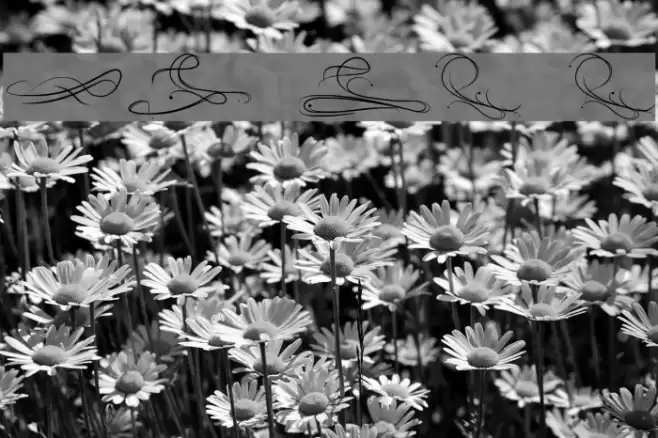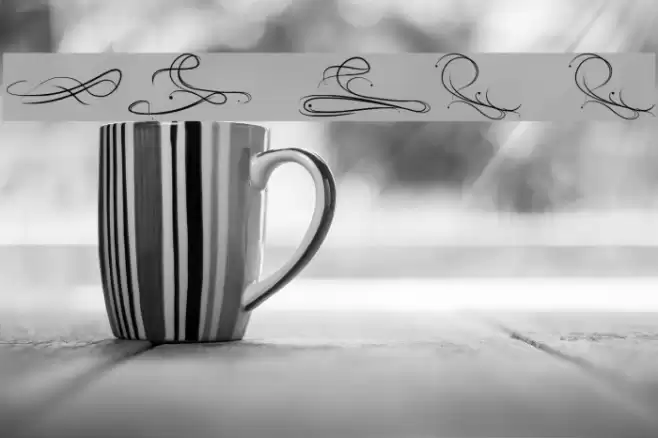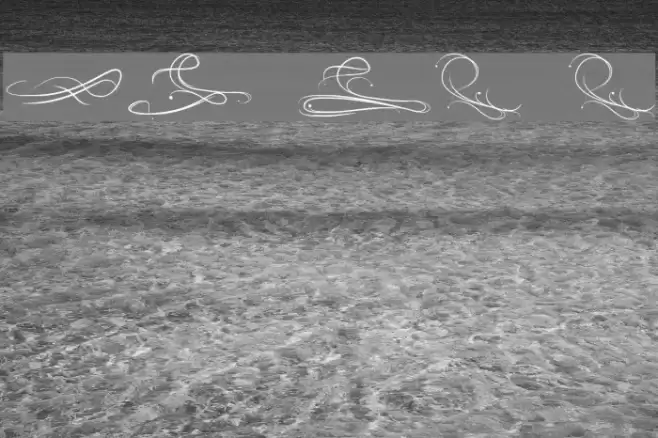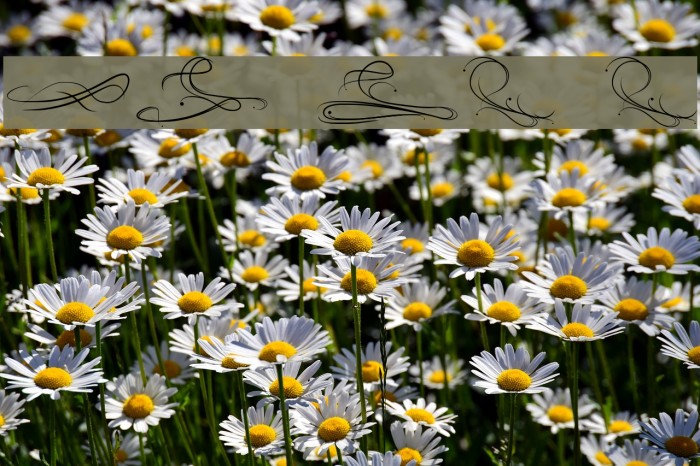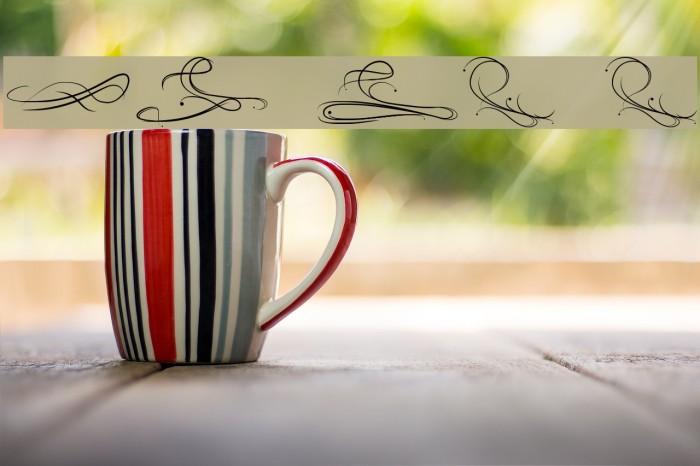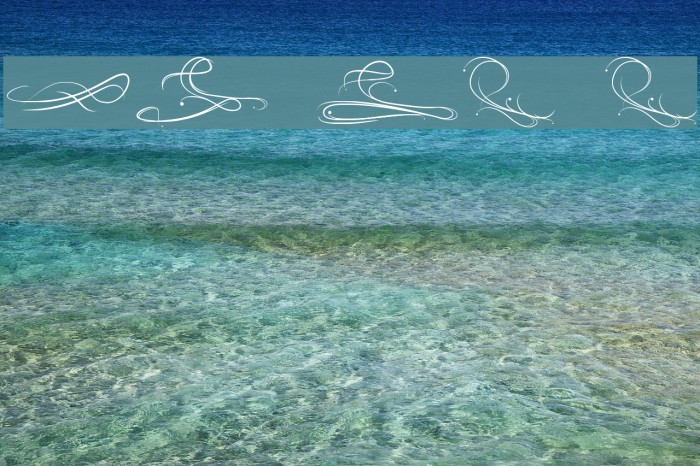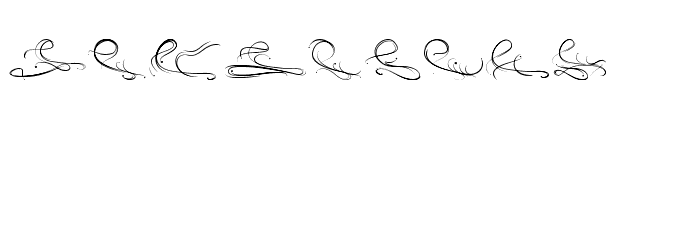
Eau de rose Font
Eau de rose Description
This font is an exquisite example of decorative calligraphy, characterized by its intricate swirls and flourishes. Each letter is adorned with elaborate loops and curves, creating a sense of elegance and sophistication. The strokes vary in thickness, adding a dynamic contrast that enhances the visual appeal. The overall design is reminiscent of vintage script styles, often seen in formal invitations or historical documents. Its ornate nature makes it ideal for projects that require a touch of luxury and refinement.
An ornate, decorative calligraphy font with intricate swirls and flourishes from Dingbats fonts.
- Proposed Projects: Ideal for wedding invitations, luxury branding, certificates, and decorative headings.
- Character Spacing: Wide
- Overall Style: Vintage
- Use Case: Logos, Headlines, Invitations